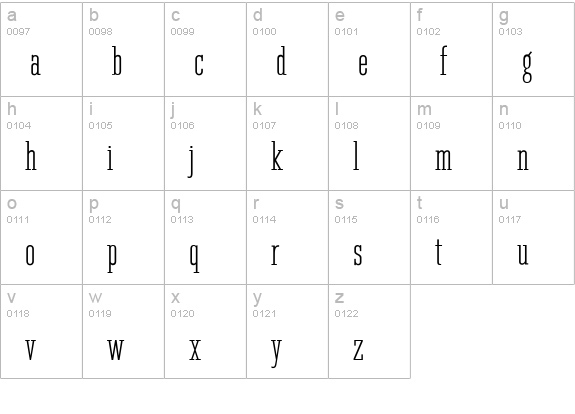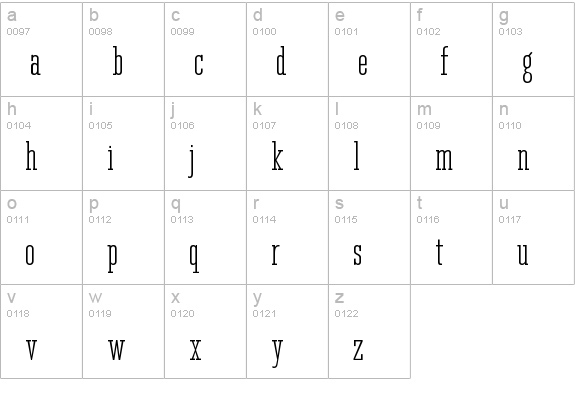
CgTowerCd Font Details
CgTowerCd font is a modern and stylish typeface that exudes elegance and sophistication. Its sleek lines and sharp angles make it perfect for a wide range of design projects, from branding to editorial design. The unique combination of classic and contemporary elements gives CgTowerCd font a timeless appeal that is sure to make your designs stand out. The best part? CgTowerCd font is completely free to download at FontsMarket.com. This means you can elevate your projects with this beautiful font without having to spend a dime. Whether you're working on a website, a poster, a logo, or any other design project, CgTowerCd font is sure to make a bold statement and leave a lasting impression. Download it today and let your creativity soar with this stunning typeface.